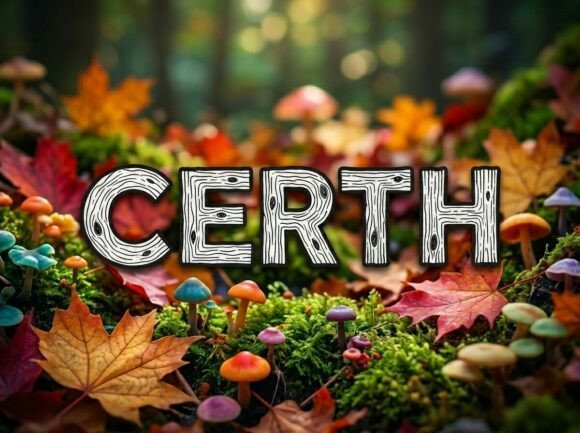
The Perfect Font for Making a Statement
Have you ever been stuck in front of a blank page, struggling to come up with the perfect font to capture the essence of your creative project? We’ve all been there. But what if I told you there’s a font that’s designed to make a bold statement and leave a lasting impression?
Meet the Certh Font, a stunning decorative display font that’s perfect for designers who want to break away from the ordinary. This versatile font is designed to be the center of attention, featuring unique artistic elements and a strong visual personality. Whether you’re creating bold headlines, artistic logos, or creative packaging, the Certh Font is sure to add a professional and polished finish to your work.
Certh Font Key Features
- Unique Characteristics: The Certh Font features a modern, elegant design with subtle curves and geometric shapes, making it ideal for use in logos, branding, and typography.
Certh Font Review
I’ve had the chance to dive into the Certh Font, and I must say, it’s got its strengths. Here are a few things that stand out: ✨
- Unique, stylized letterforms that give it a distinctive look.
- Nice, subtle texture that adds depth to the overall design.
- Good legibility, even at smaller font sizes.
- Clean and modern aesthetic that makes it suitable for a wide range of applications.
However, there are some areas where the Certh Font falls short: ⚠️
- Limited character set – it’s missing some basic punctuation and special characters.
- Not as versatile as other fonts in similar styles – it’s quite specific to a certain design direction.
- Might be a bit too ornate for some uses, where a cleaner, more minimalist look is preferred.
Overall, the Certh Font is a solid choice for designers looking to add a touch of sophistication to their work. While it’s not perfect, its unique style and good legibility make it worth considering for the right project. Just be aware of its limitations, and you’ll be fine.
Certh Font is ideal for:
– Headings and titles in design projects.
– Creating a unique and modern aesthetic in marketing materials.
– Adding a touch of sophistication to digital products and websites.
Alternatives to Certh Font
Montserrat is a popular sans-serif font designed by Julieta Ulanovsky. It is ideal for digital applications, headlines, and body text. Montserrat is more geometric and modern compared to Certh Font, which has a more organic feel. Use Montserrat when you want a clean and modern look.
Open Sans is another highly-regarded sans-serif font designed by Steve Matteson. It is known for its clean lines, friendly feel, and high legibility. Compared to Certh Font, Open Sans is more straightforward and lacks the unique personality of Certh. Use Open Sans when you want a neutral and approachable font.
Merriweather is a classic serif font designed by Eben Sorkin. It is ideal for print materials, books, and formal documents. Merriweather is more traditional and elegant compared to Certh Font, which has a more contemporary feel. Use Merriweather when you want a sophisticated and timeless look.
Lato is a sans-serif font designed by Łukasz Dziedzic. It is known for its modern and clean lines, making it perfect for digital applications and web design. Lato is more minimalist compared to Certh Font, which has a more expressive personality. Use Lato when you want a sleek and modern look.